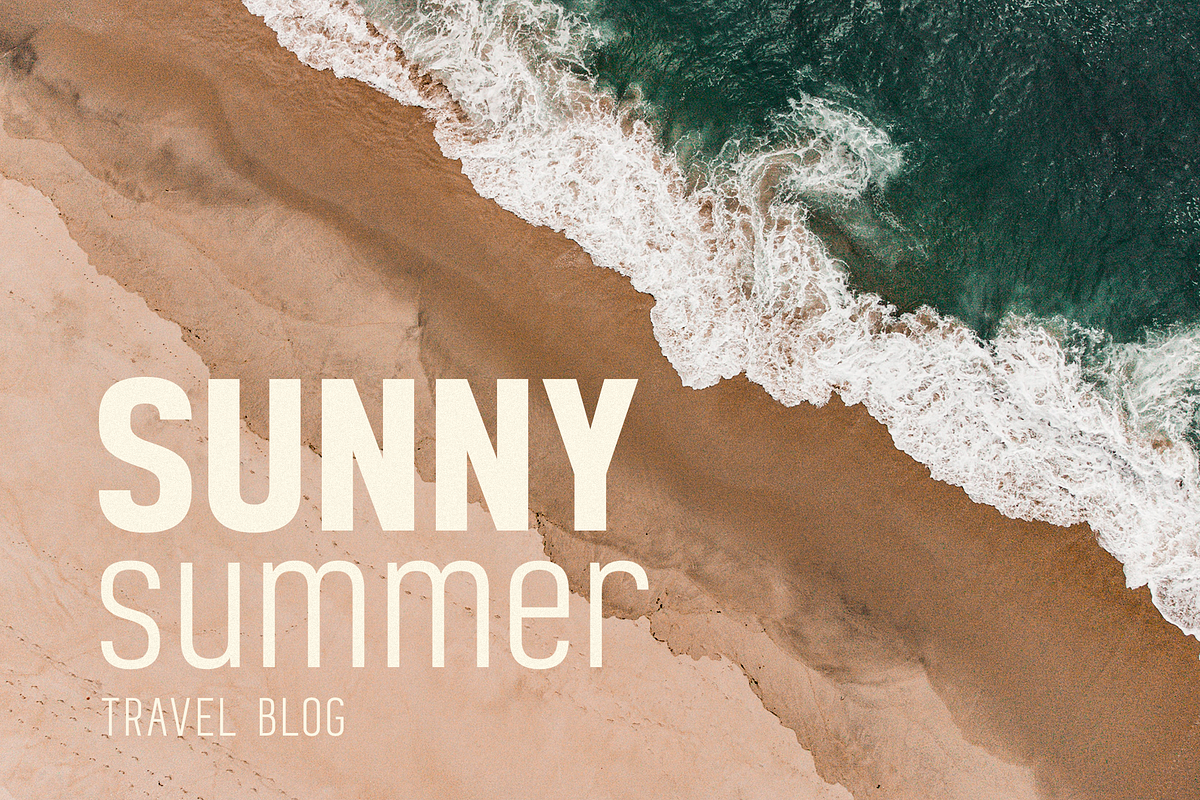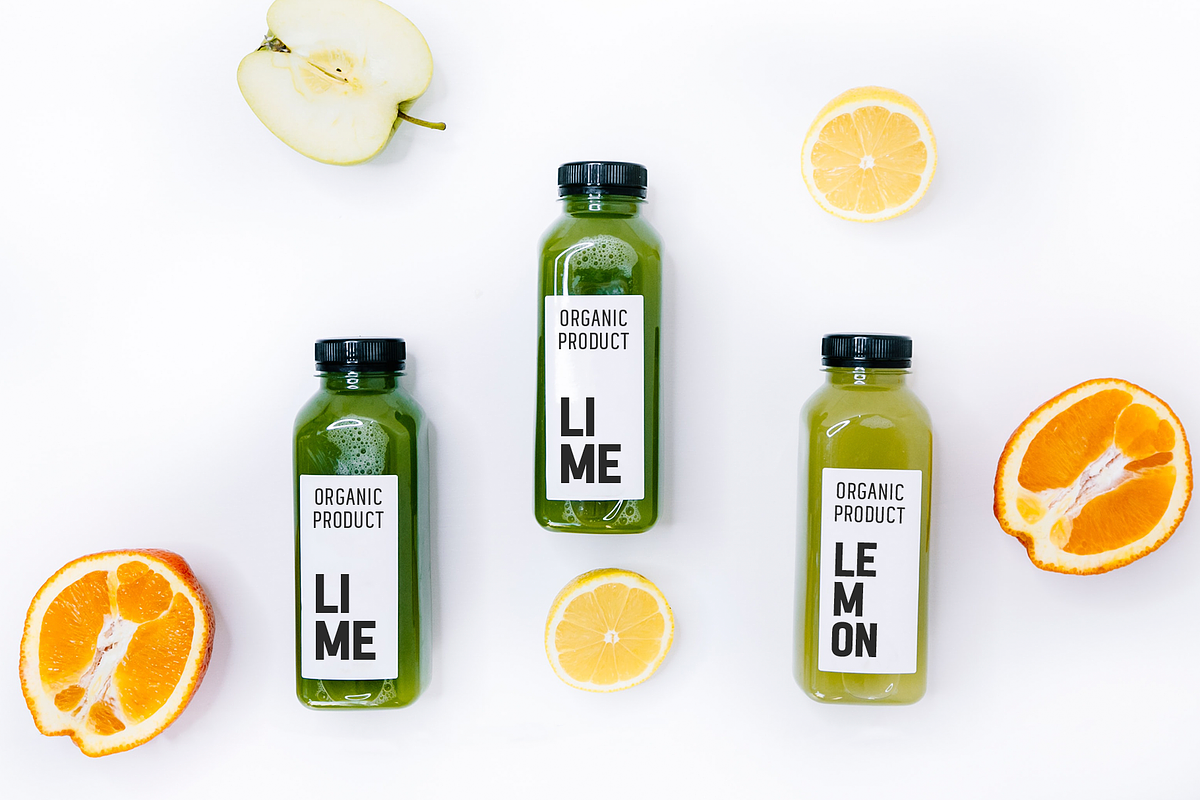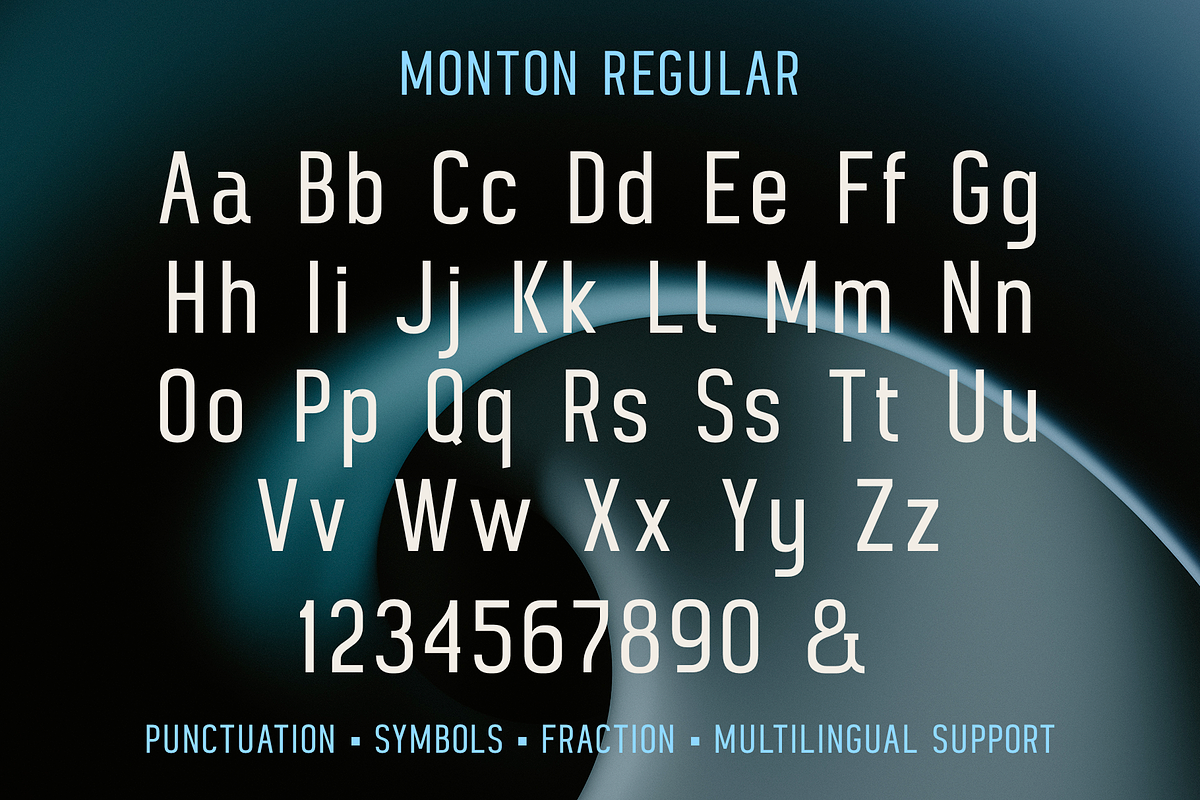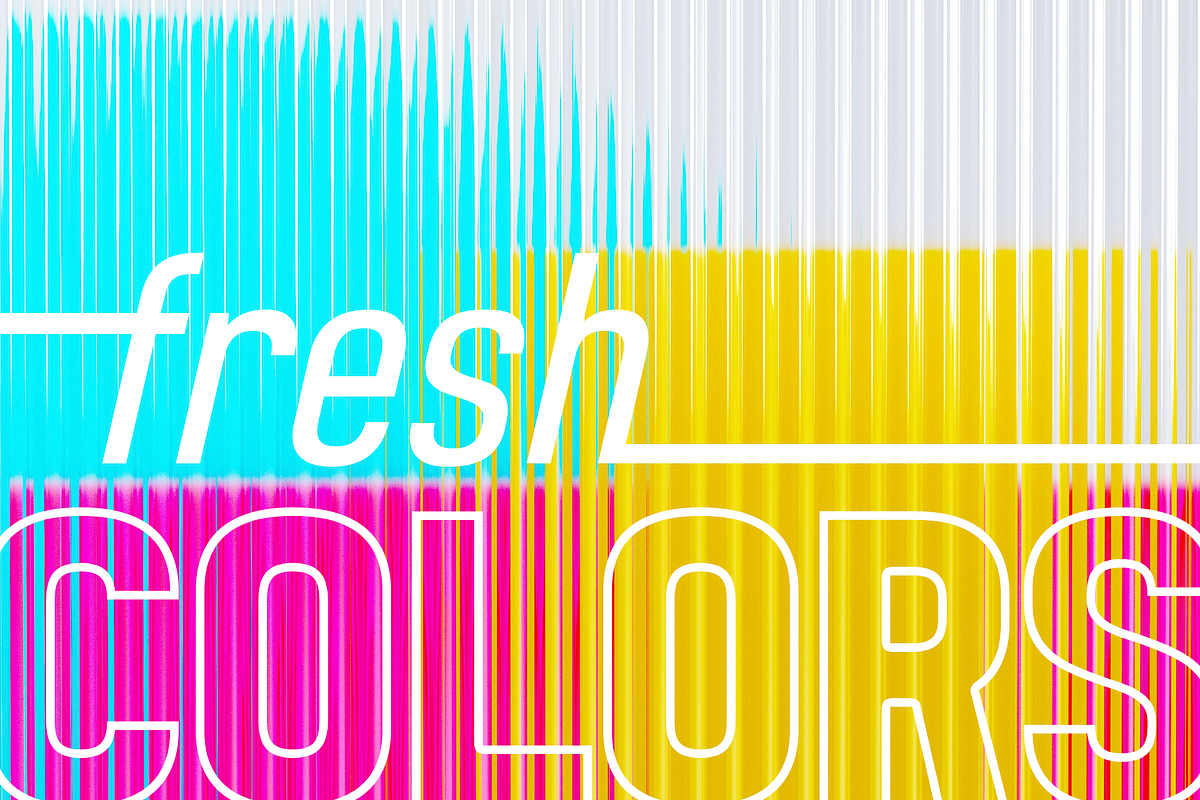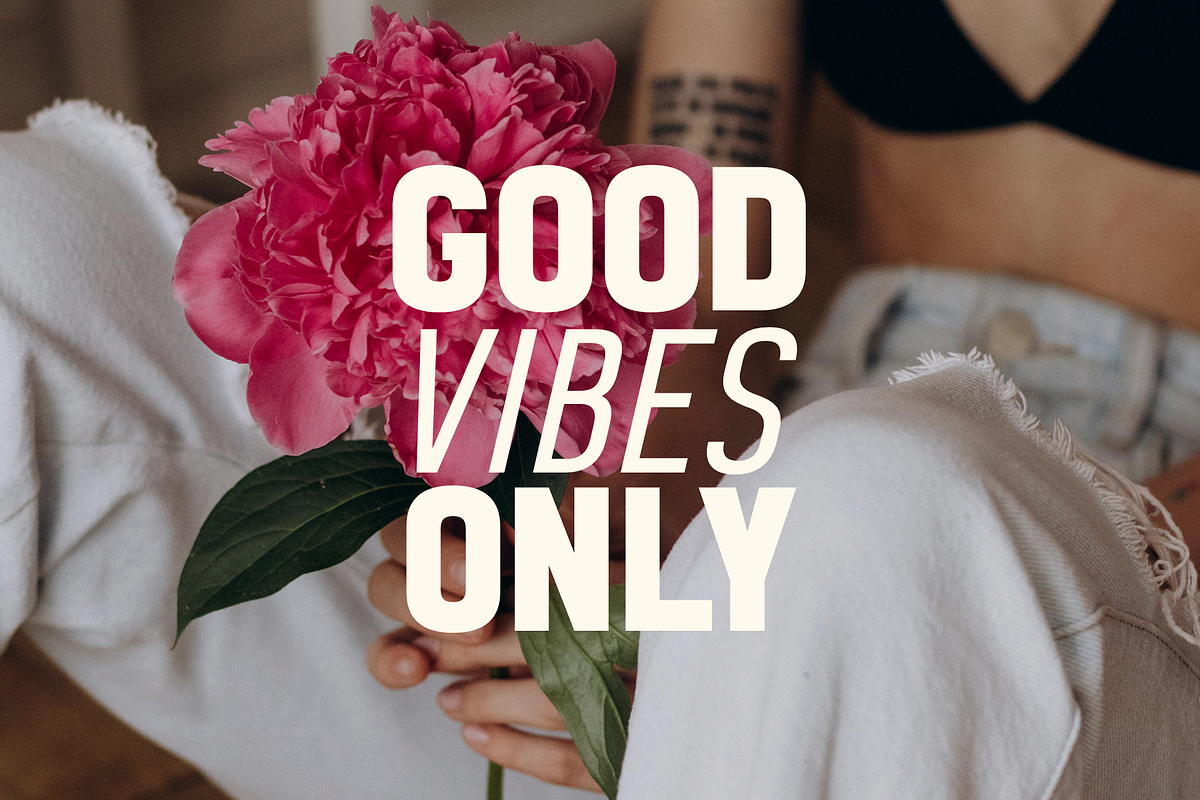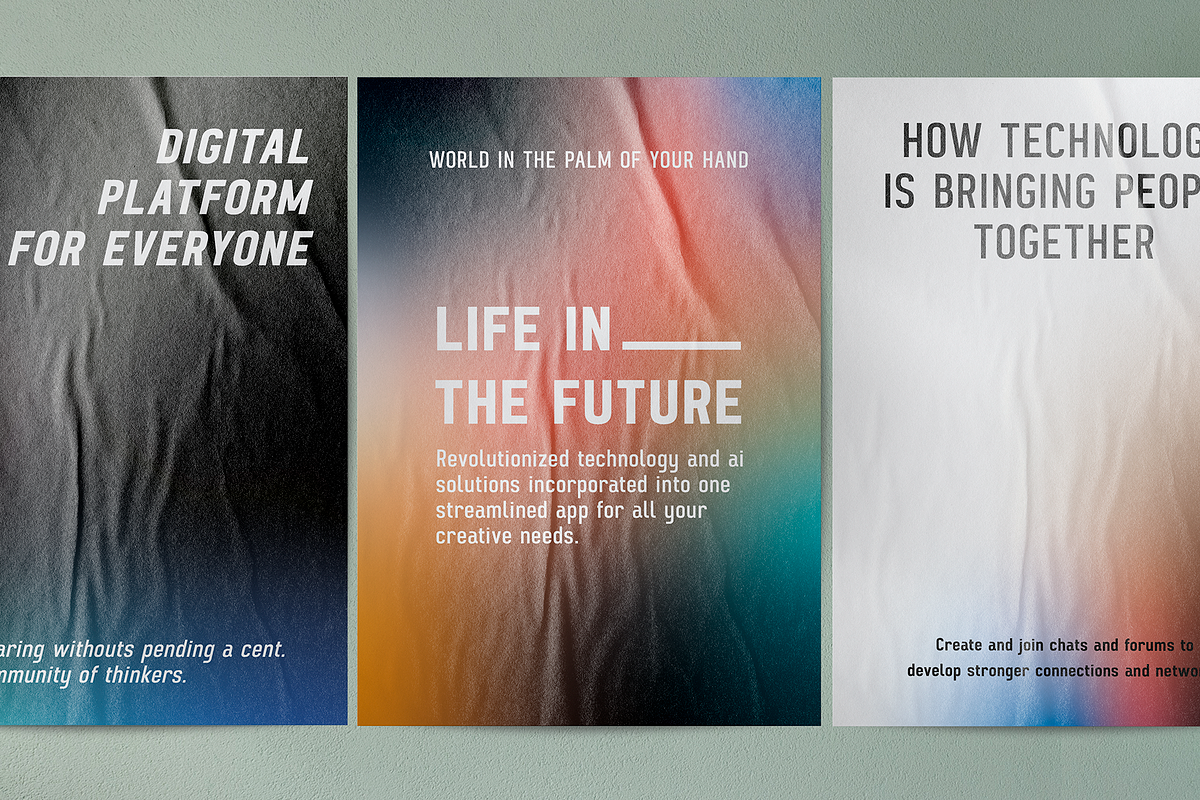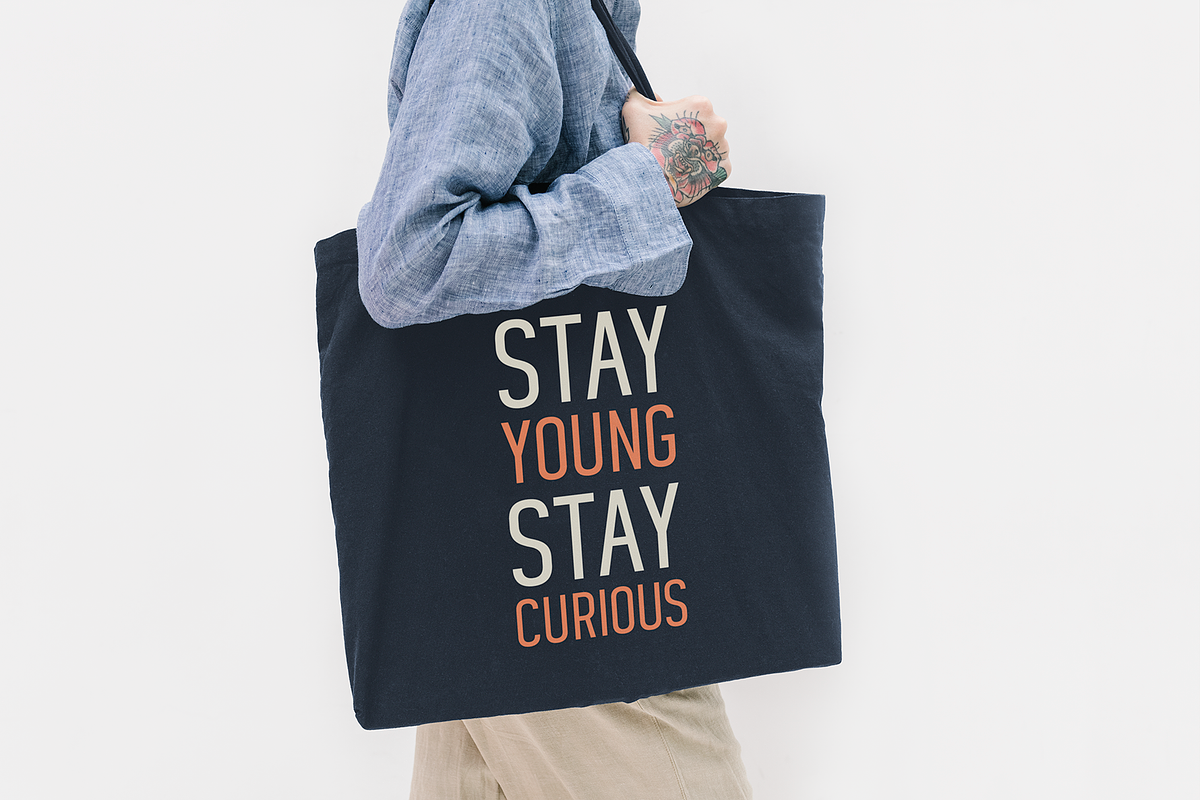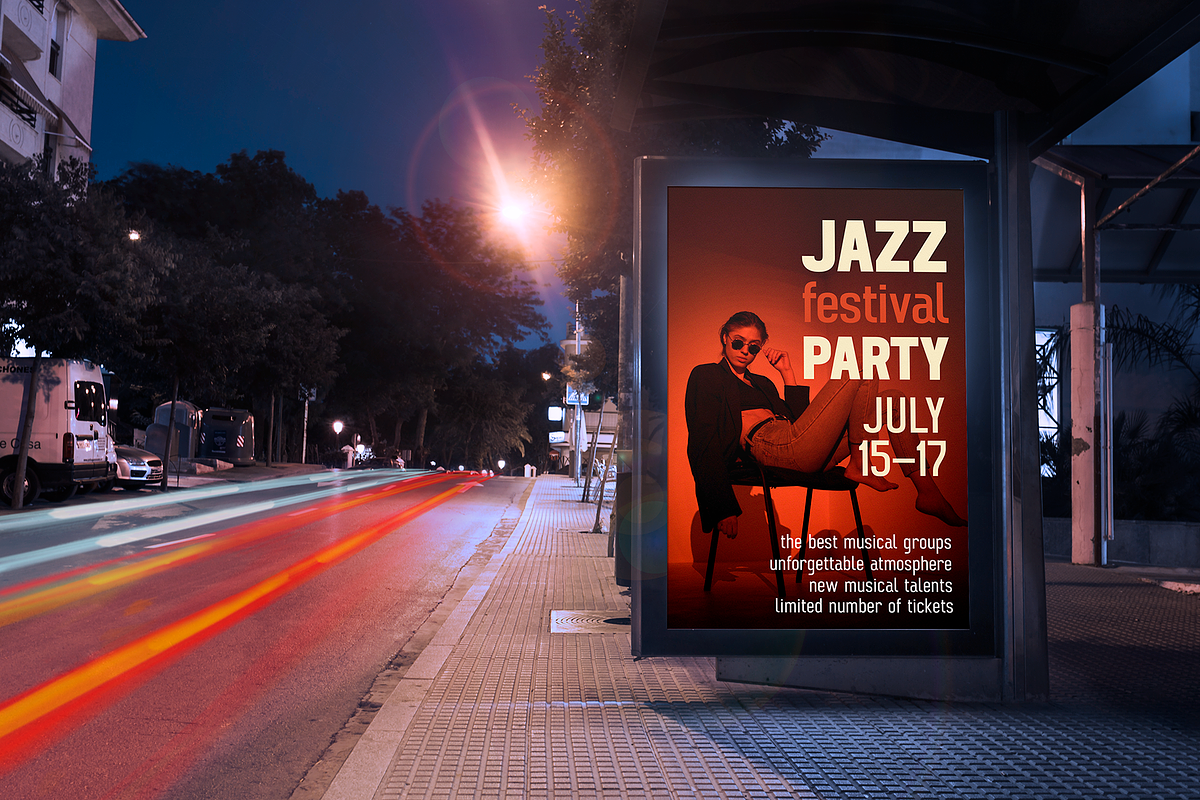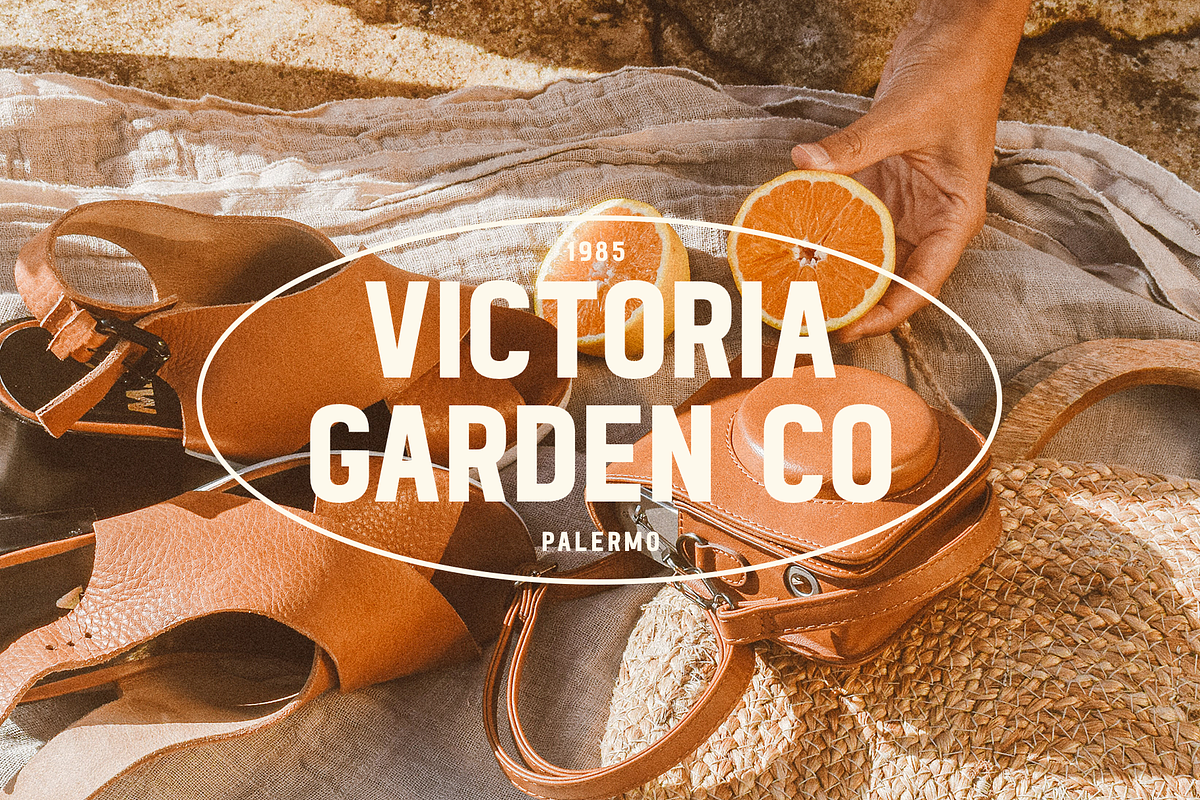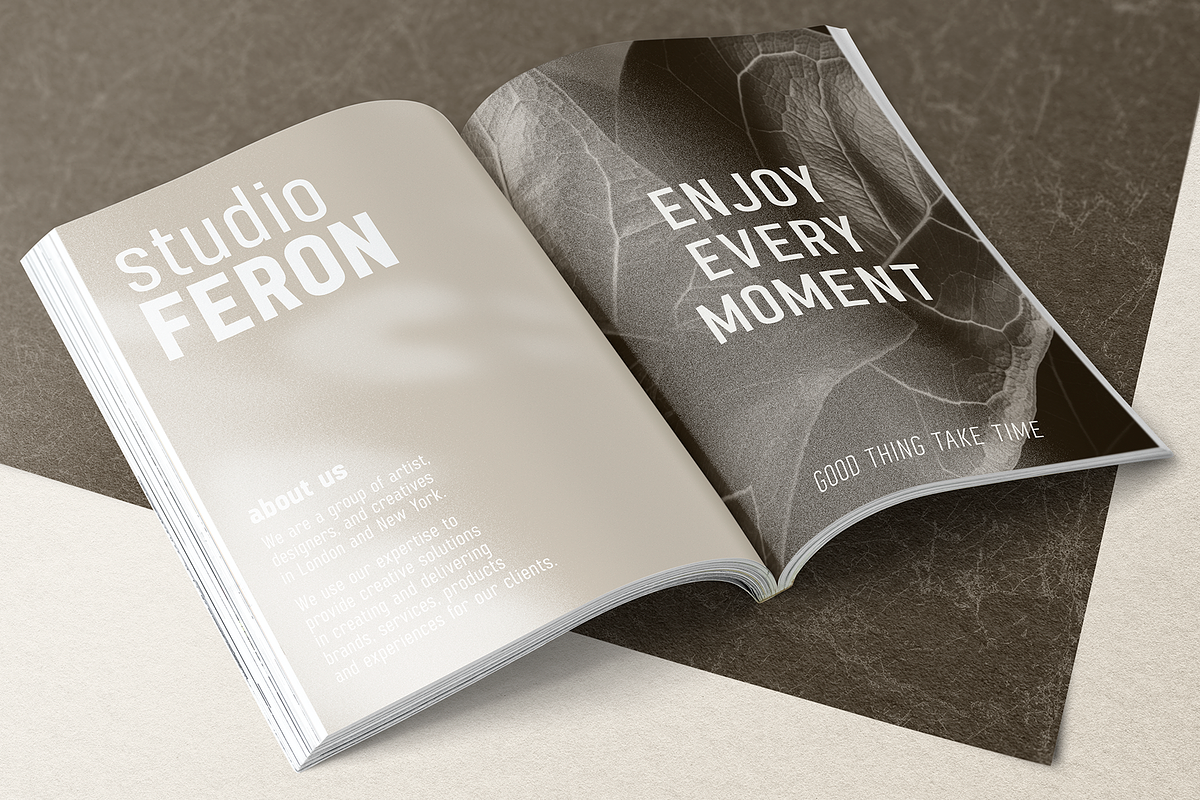
Monton
Monton is a wonderful font family that includes from thin to black style as well as in oblique style, a total of 18 fonts.
This is a condensed block sans-serif font that is perfect for titles, logos, branding, posters, flyers, website design, advertising, labels, packaging, web titles, text descriptions and much more. It is well readable and irreplaceable in modern design and can be used as a main or additional one.
Following international symbols support: ÀÁÂÃÄÅĄÇĆÈÉÊËĘÌÍÎÏÐÑŃŁÒÓÔÕÖØÙÚÛÜŚŠŸÝŹŻŽßàáâãäåçèéêëìíîïðñòóôõöøùúûüýÿąćęłńśšźżž
Full alphabet with Uppercase and Lowercase A-z
Numbers, fractions
Punctuation and symbols